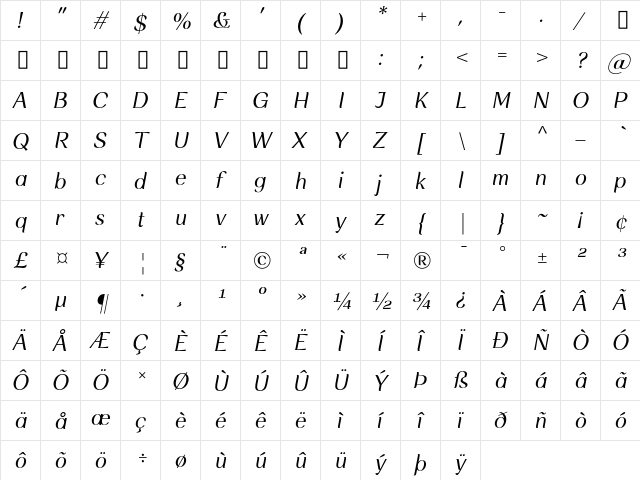
Rossanova Personal Use Italic
Design Context for Rossanova Personal Use Typeface
Rossanova Personal Use offers clean, dependable letterforms without strong stylistic allegiance, making it a practical choice for designers who need flexibility. Its italic angle brings a sense of urgency and motion to the letterforms.
Pro Tip: Try Rossanova Personal Use for annotation and caption copy alongside an upright companion — the contrast in angle creates a dynamic but ordered typographic system.